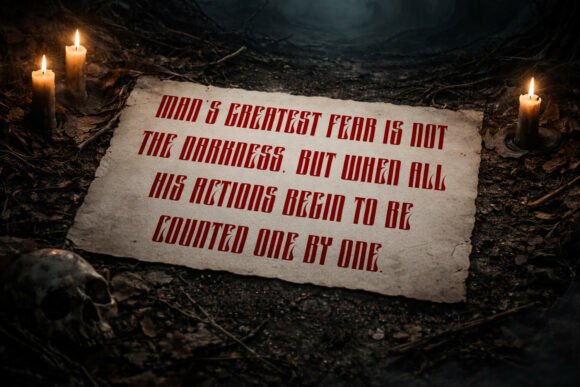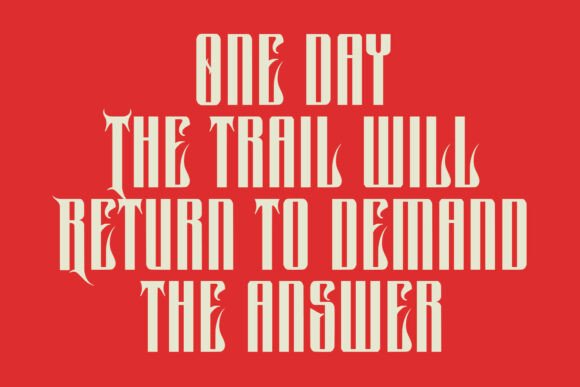
Introduction to Qiropt Font
Unleash a dark, sophisticated edge with Qiropt, a bold modern blackletter typeface designed for maximum visual impact.
Fusing the historical aggression of traditional Fraktur with sleek, contemporary geometric lines, Qiropt offers a unique β€œsharp-meets-smooth” aesthetic This display font features tall, condensed letterforms and striking ornamental alternates that give your text a custom, hand-lettered feel.